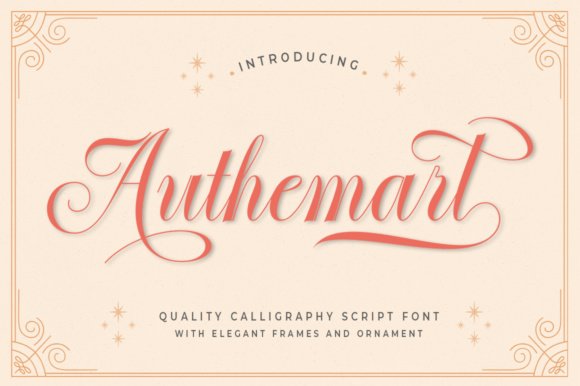
The Perfect Script Font for Your Next Design Project
As designers, we’ve all been there – staring at a blank canvas, trying to conjure up the perfect font to bring our vision to life. And sometimes, it’s the little things that make all the difference. Like the gentle swish of a script font, or the elegant curves that add a touch of sophistication to our designs. That’s where Authemart Script Font comes in – a high-quality font that seamlessly blends modern and vintage touches to create a truly timeless look.
With Authemart Script Font, you can add a dash of classic glamour to your designs, from wedding invitations to branding materials. Its smooth, clean lines and feminine flair make it the perfect choice for any project that requires a touch of elegance. Whether you’re a seasoned designer or just starting out, Authemart Script Font is a valuable addition to your toolkit, offering endless possibilities for creativity and self-expression.
Authemart Script Font Key Features
- Font Family: Authemart Script, Authemart Script Italic, Authemart Script Bold, Authemart Script Bold Italic
- Unique Characteristics: Whimsical, hand-drawn feel, elegant script font with intricate details and flourishes, ideal for creative and artistic projects
Authemart Script Font Review
When I first laid eyes on Authemart Script, I was immediately drawn to its whimsical charm. The flowing lines and elegant curves are a perfect blend of sophistication and playfulness, making it an ideal choice for creative projects. ✨ The font’s versatility shines through in its ability to be used for a wide range of applications, from headings to body text, and even as a standalone title.
One of the standout features of Authemart Script is its high level of customization. It comes with a wide range of OpenType features, allowing you to fine-tune the font to fit your specific design needs. ✨ Additionally, the font’s smooth connections between letters make it a breeze to read, even at smaller font sizes.
Overall, I’m thoroughly impressed with Authemart Script. Its unique blend of elegance and whimsy makes it a standout font in any designer’s toolkit. While it may have some limitations, the font’s versatility and high level of customization make it a worthwhile investment for any creative project. ✨
Tips for Getting the Most Out of Authemart Script Font
Use the Authemart Script Font for creative and elegant designs, such as invitations, quotes, and logos.
Combine the font with other script fonts for a unique and eye-catching design.
Experiment with different font sizes and styles to create a visually appealing design.
The Authemart Script Font is commonly used for:
Invitations and wedding stationery
Quotes and motivational posters
Logos and branding materials
Editorials and articles in creative industries
Alternatives to Authemart Script Font for Designers
Carolyna Pro is a luxurious, elegant script font ideal for high-end branding, invitations, and wedding stationery. It’s perfect for designers who want to create sophisticated and refined designs.
Compared to Authemart Script Font, Carolyna Pro has a more refined and polished look, with a wider range of ligatures and swashes. While Authemart has a more playful and whimsical feel, Carolyna Pro exudes luxury and sophistication.